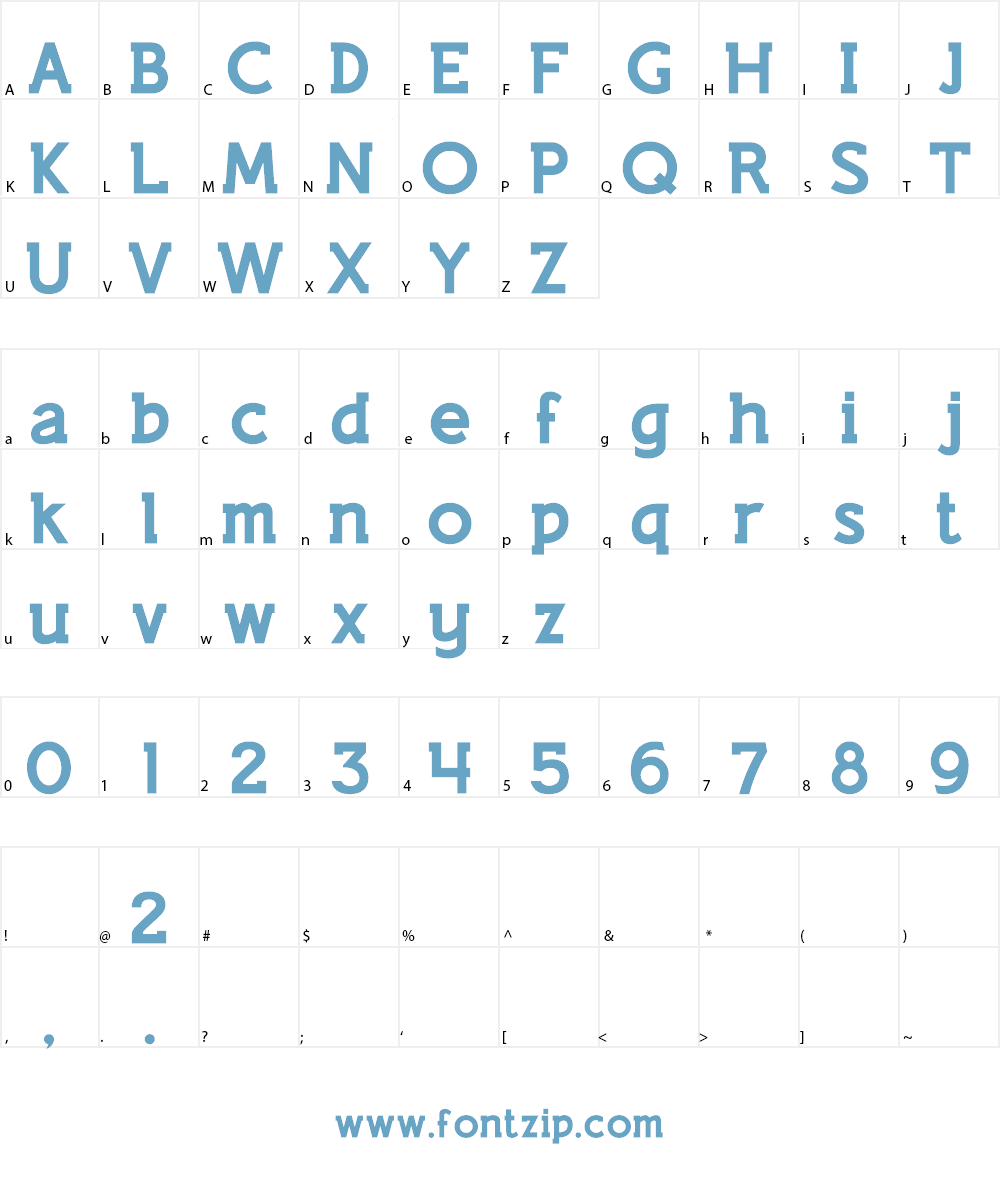
Just a semi-slab serif font I felt inspired to create after flicking through a magazine. I also did a round edged version of this 'Lifestyle Rounded M54'.